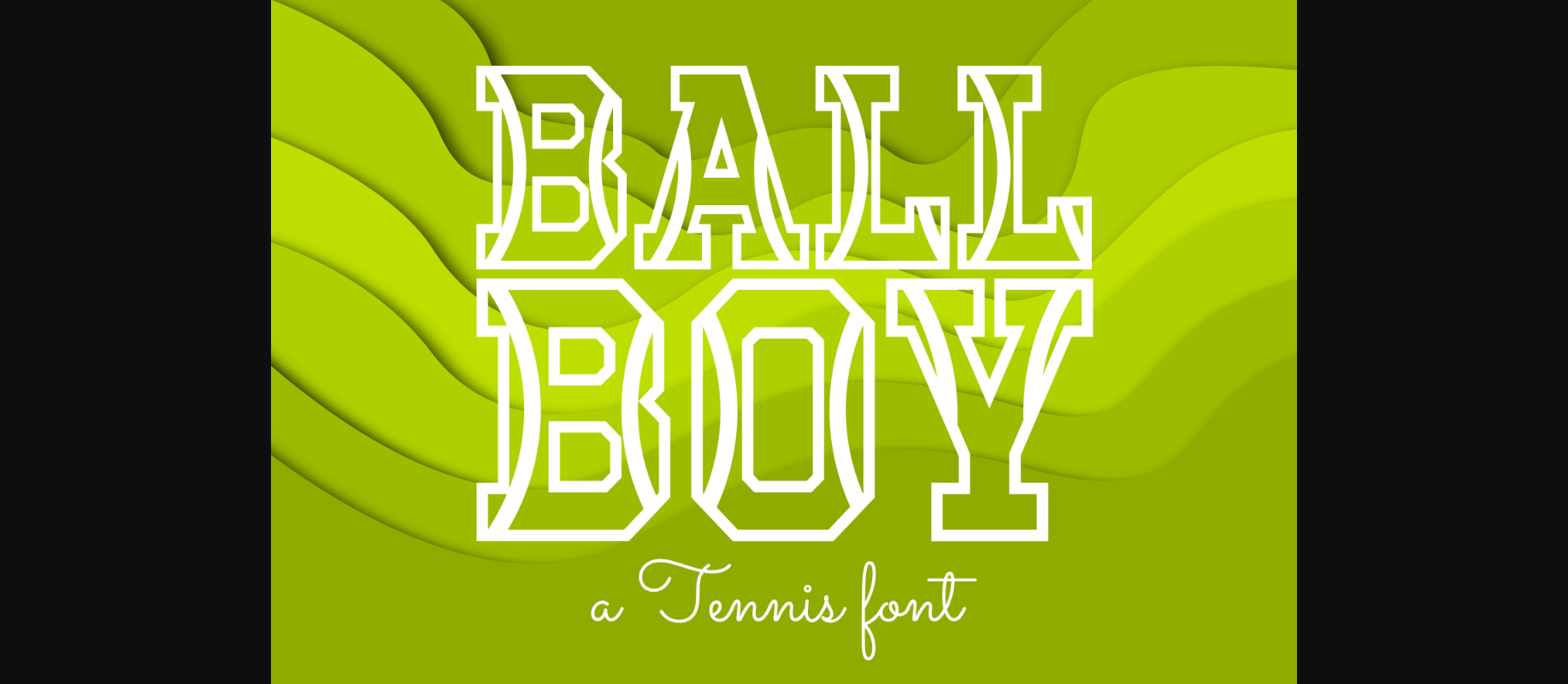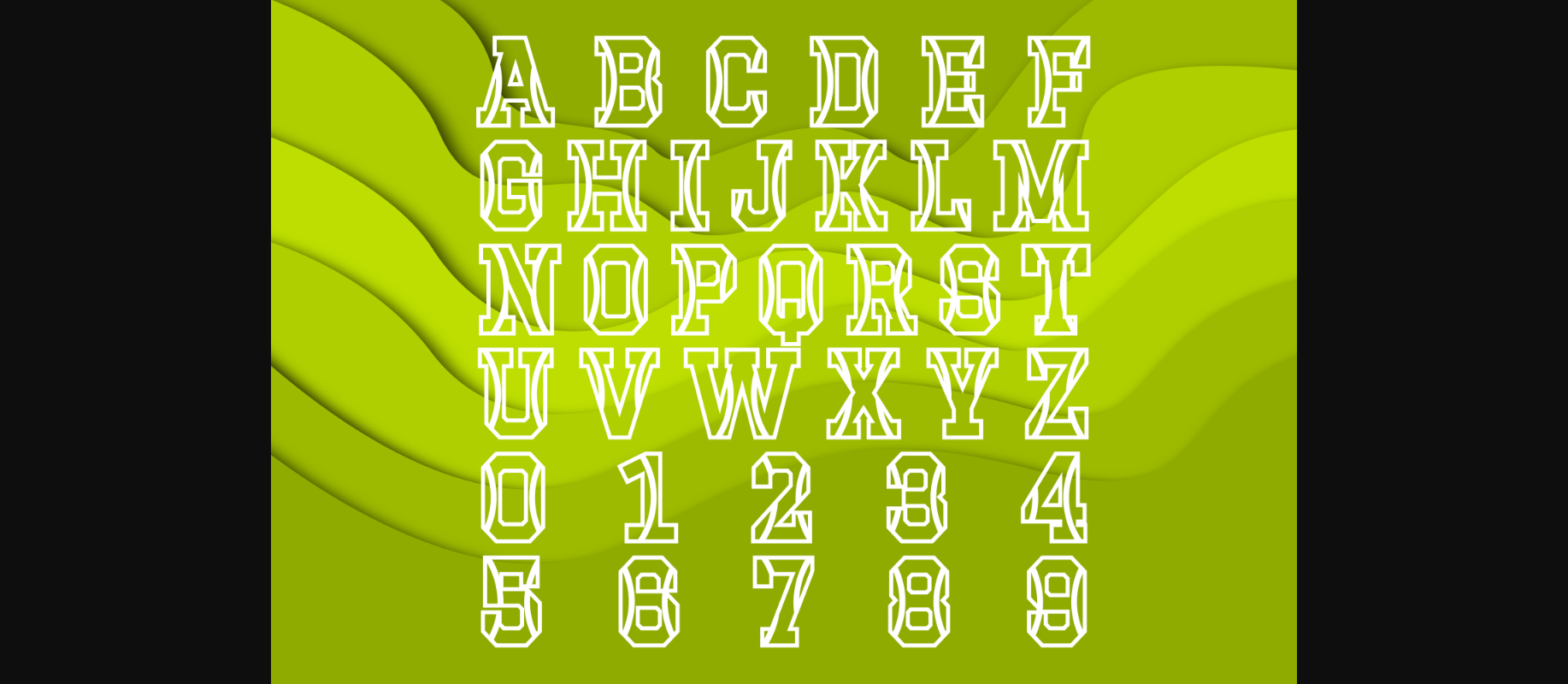
HomeDecorative FontsBall Boy Font Decorative Fonts Ball Boy Font FacebookXPinterestWhatsApp 1 of 5 ... Ball Boy Font Poster 2... Ball Boy Font Poster 3... Ball Boy Font Poster 4... Ball Boy Font Poster 5... About Ball Boy Font Ball Boy is an incredibly cool decorative font. Whether you use it for custom designs, DIY crafts, or just any creation that requires a lovely touch, this font will be an amazing choice. DOWNLOAD NOW People also explored Ragata Font Merry and Joy Font Hellodorrby Font Delinda Agatha Font Fratra Font Vintage Font Florist Font Hollow Font Cinnamon Cookie Font 345 0 TagsBall Boy Font Previous articleSpider Party FontNext articleSelna Beauty Font LEAVE A REPLY Cancel reply Comment: Please enter your comment! Name:* Please enter your name here Email:* You have entered an incorrect email address! Please enter your email address here Website: Save my name, email, and website in this browser for the next time I comment. Personal Use Free Royal Bengal Tiger Personal Use Free Read more about this font Ginóra Personal Use Free Read more about this font Neuropol Personal Use Free Read more about this font Whitelight Personal Use Free Read more about this font BLOG 5 Fonts That Will Dominate Design Trends in 2026 5 Fonts for 2026 That Will Dominate Design Trends Typography plays a critical role in visual communication, and as we look ahead to 2026, it’s... Top 7 Google Fonts Alternatives for Faster and Privacy-Friendly Web Design (2025) Where to Buy American Fonts Online in 2024 Best Fonts for YouTube Videos: Make Your Thumbnails Stand Out